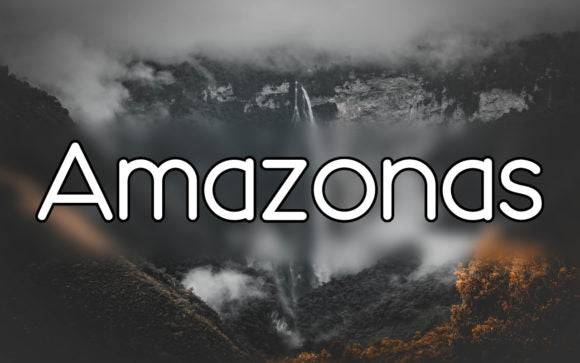
Amazonas Font for Crafting, Logos and Print Projects
Amazonas is a striking display typeface inspired by nature and tribal aesthetics, designed for use in crafting, branding, and professional print materials. Its bold character and rustic texture make it ideal for projects that seek to convey raw creativity and outdoor energy. The versatility of Amazonas allows it to be utilized across various mediums, from product packaging to promotional materials, enhancing the visual impact of any design. For those looking to explore similar styles, the 'ampun suhu font overview' offers a comprehensive look at other typefaces inspired by natural elements. Its unique blend of artistry and practicality makes Amazonas a go-to choice for designers who want to make a bold statement.
This font entity is tailored for creators who want to infuse organic style and personality into their visuals. Its bold weight and dynamic contours stand out on packaging, logos, labels, and posters. Its versatility makes it suitable for various applications, ensuring that each design carries a unique touch. Whether crafting a cozy brand identity or a striking advertisement, this household harmony font for logos captures attention and evokes emotion. With its expressive features, it helps to create a memorable connection between the brand and its audience.
Amazonas adds a handcrafted, untamed feel to any design system that needs visual storytelling and cultural edge.
- Logo and brand identity designers
- Crafting professionals and hobbyists
- Print product developers and Etsy sellers
- Nature-themed and outdoor content creators
- Marketing designers and creative teams
- Tribal and nature-inspired logos
- Event posters and handmade packaging
- Eco-conscious branding and labels
- Printable artwork and signage
- Craft projects and merchandise
- Earthy, bold design with natural inspiration
- Perfect for outdoor and tribal themes
- Works well in both digital and print settings
- Unique visual presence for branding
Q: What kind of font is Amazonas?
A: Amazonas is a bold, tribal-style display font ideal for crafting, logos, and natural-themed print designs. Its unique characteristics and distinct look make it an ideal choice for eye-catching branding that stands out. For those looking to make a statement, the Amazonas font complements various visual elements while exuding a sense of nature-inspired creativity. It is the perfect anjhay font for logo design, ensuring that your brand resonates with authenticity and artistic flair. Its unique design elements capture the essence of adventure and the great outdoors, making it a perfect choice for businesses in eco-tourism and outdoor activities. Additionally, the Amora font for branding purposes complements Amazonas beautifully, providing a modern contrast that enhances visibility and appeal. Together, these fonts create a harmonious visual identity that resonates with audiences who appreciate nature and creativity.
Q: Can I use it in eco-friendly or rustic product designs?
A: Yes, Amazonas is ideal for nature-centric branding, handmade packaging, and earthy print goods.